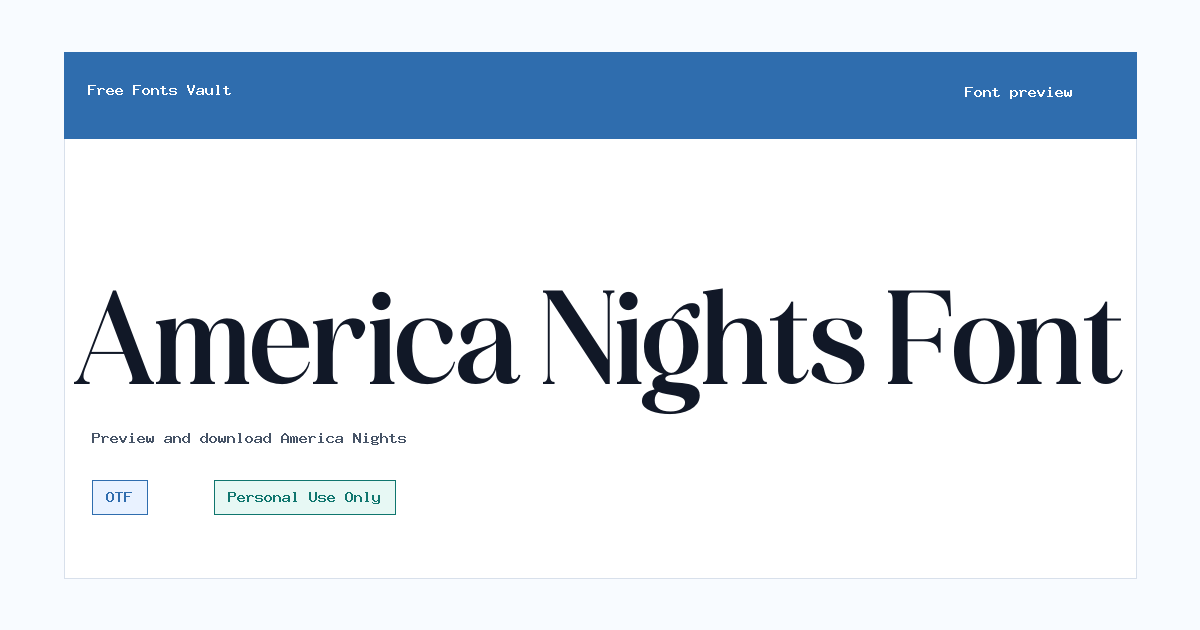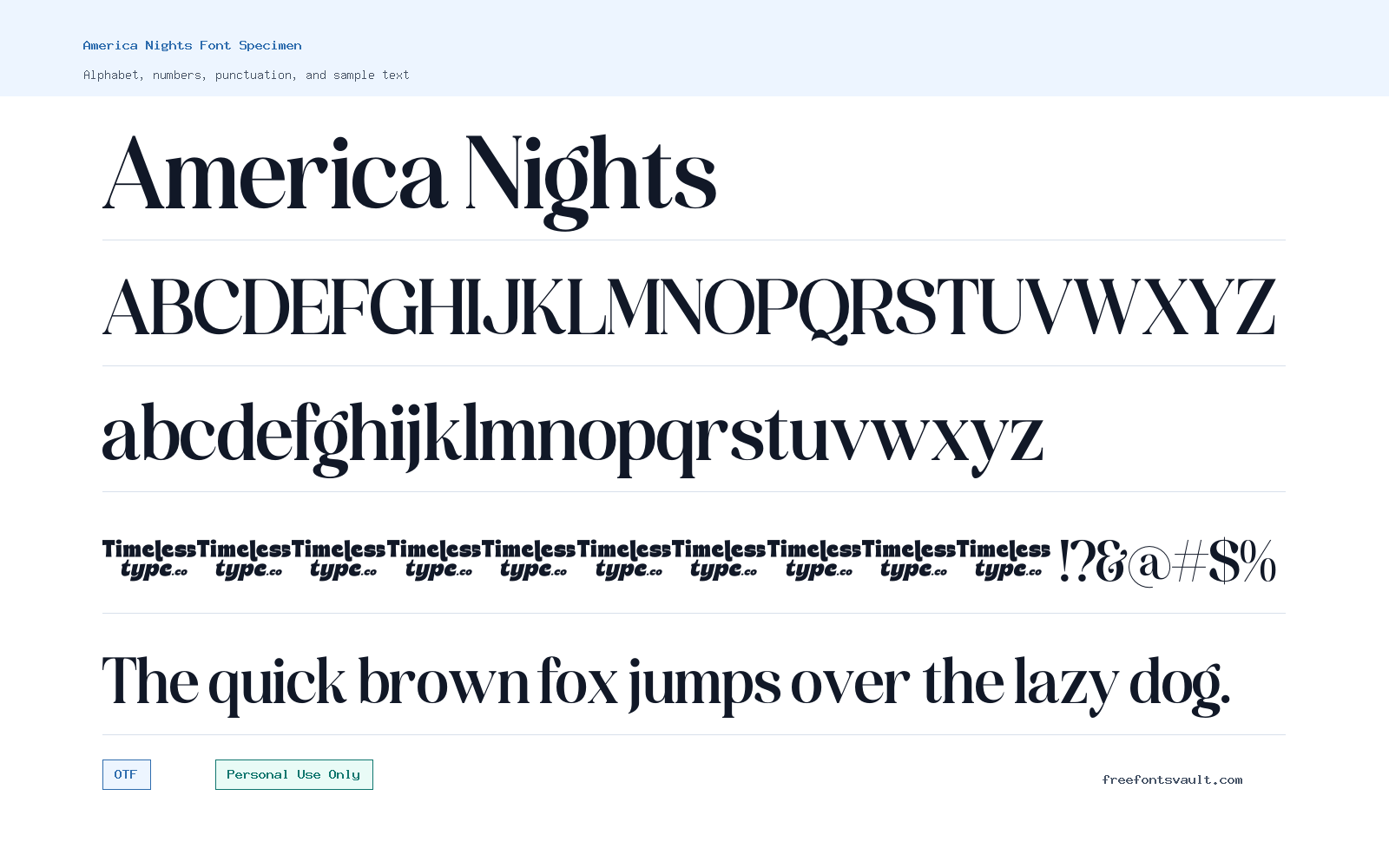
America Nights
- Designer Heru Utama Putra
- Foundry TimelessType
America Nights font.
America Nights is a high-contrast serif font with a polished display look. It works best when the text is large enough for its sharp details, tight curves, and elegant spacing to show clearly.
About America Nights Font
America Nights has the feel of a fashion or editorial serif: tall letterforms, strong thick-to-thin contrast, fine serifs, and rounded details that give headlines a refined tone. The regular style has enough weight for titles, short branding text, invitations, menu headings, quote graphics, and social posts where a classic serif needs to feel more expressive than a standard text face. It is not a plain body-text font, so it makes the strongest impression in short lines rather than long paragraphs.
- Regular OTF serif style with high contrast, fine serifs, uppercase, lowercase, numbers, punctuation, and extended Latin character support.
- OpenType data includes ligatures, fractions, and multiple stylistic sets, though access to these features depends on the design app or browser support.
- Editorial-style headlines, magazine titles, boutique branding, invitation text, and elegant poster layouts.
- Short display text such as names, menu headings, quote graphics, packaging mockups, and social media title cards.
For the cleanest result, use America Nights at display sizes and avoid crowding the letters. It can look elegant in title case, while all-caps settings may need extra letter spacing. If you use it in Canva, Photoshop, Illustrator, Figma, or a web mockup, check whether OpenType alternates and ligatures are enabled, because the look may change depending on app support.
What kind of font is America Nights?
America Nights is a high-contrast serif display font. It is better for headings and decorative short text than for long body copy.